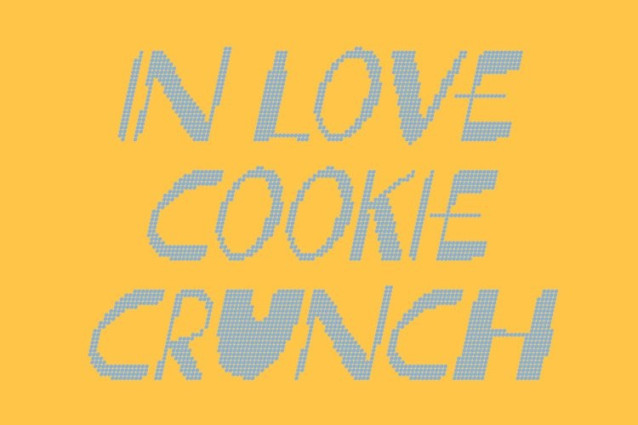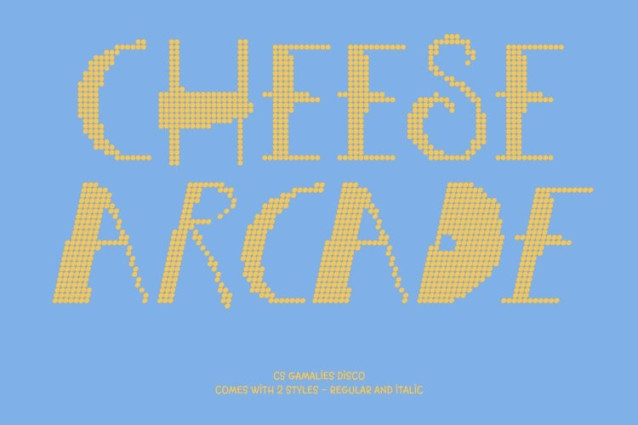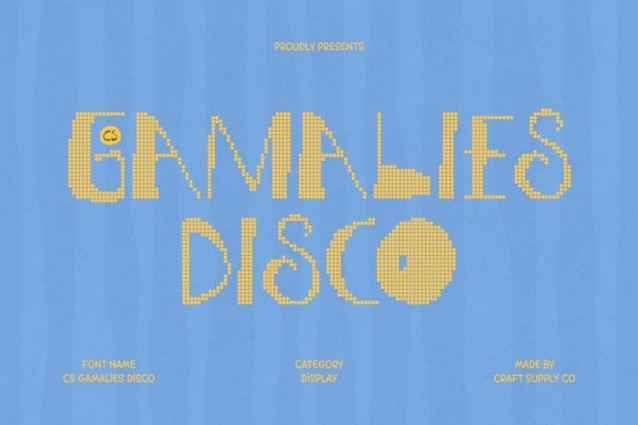
CS Gamalies Disco Font
CS Gamalies Disco Font – This embraces the bold charm of ugly display typography and transforms it with a vibrant disco-inspired dotted style. Its quirky, irregular shapes remain delightfully unpredictable, while glowing dot constructions add a sparkling party vibe. The result is a typeface that celebrates imperfection with joyful rhythm and eye-catching shine.
Irregular Strokes with Electric Personality
The wild, uneven strokes that define its “ugly” aesthetic are now built from lively circular dots, creating a playful texture that feels energetic and animated. Each letter looks like it’s bouncing under flashing dance-floor lights, turning messy spontaneity into a bold visual statement.
Friendly Chaos with Youthful Glow
Despite its unconventional form, this font keeps a friendly and approachable character. Rounded shapes and playful proportions make it feel fun rather than harsh, while the disco dots add excitement and visual sparkle. This mix of chaos and charm creates a style that feels young, imaginative, and full of life.
Perfect for Playful and High-Energy Designs
This font shines in youth branding, kids’ projects, vibrant posters, packaging, party graphics, and creative social media layouts. It’s ideal for designs that embrace fun, humor, and bold personality where imperfection becomes the highlight.